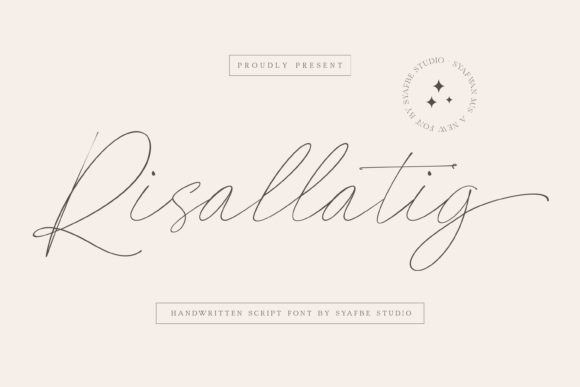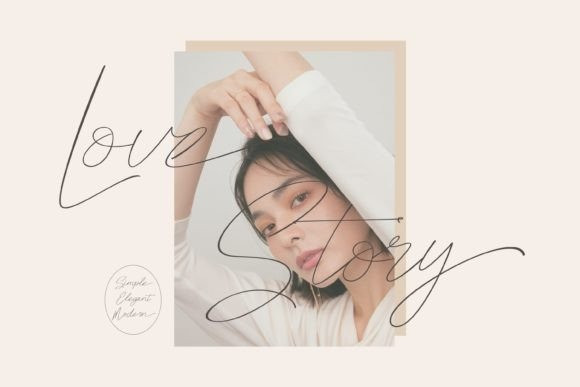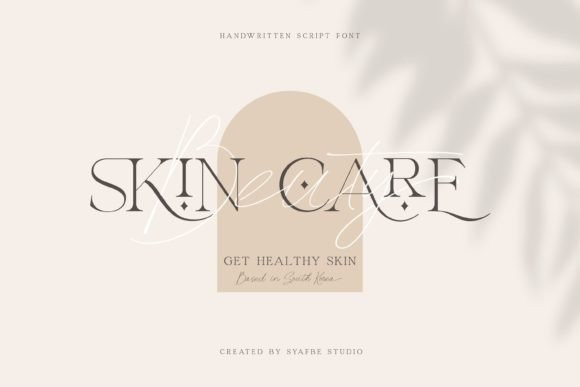
Risallatig Font
Risallatig is a handwritten font with a stylish, elegant and natural touch. It has an original feel and beautiful handwriting. Made seriously, with care and with feeling. Risallatig would perfect for photography, watermark, social media posts, advertisements, logos & branding, invitation, product designs, label, stationery, wedding designs, product packaging, special events or anything that need handwriting taste.